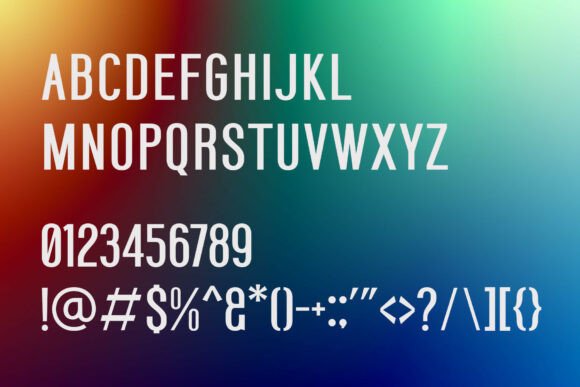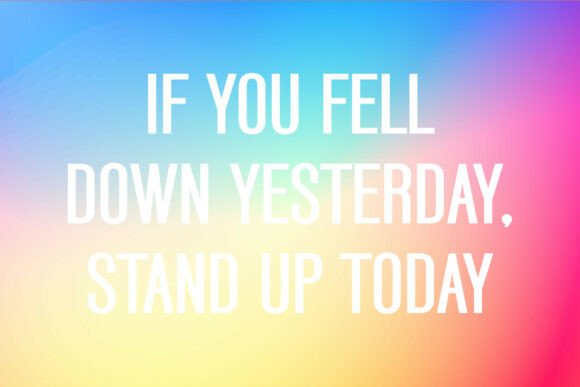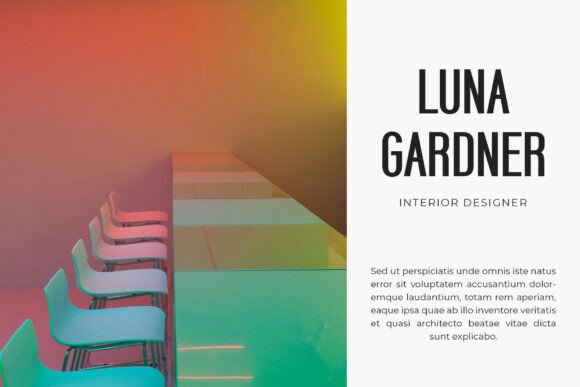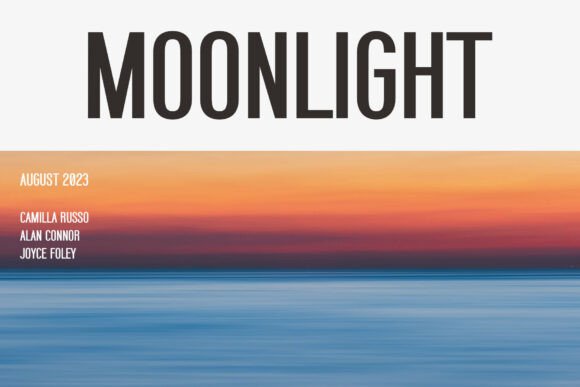
Goshiner Font: Elevate Your Designs with a Bold and Assertive Sans Serif Font
In the world of design, typography plays a crucial role in conveying messages, expressing creativity, and capturing the audience’s attention. A well-chosen font can elevate a design project from ordinary to extraordinary. If you’re a designer or crafter looking for a font that can add a touch of boldness and assertiveness to your creations, look no further than the Goshiner Font. In this article, we’ll explore the features and benefits of the Goshiner Font and why it’s an incredible asset to your font library.
What is Goshiner Font?
Goshiner Font is a bold and assertive sans serif font designed to make a statement. Its clean and modern lines make it perfect for a wide range of design projects, from branding and advertising to packaging and digital media. The font’s sans serif design ensures that your message is conveyed clearly and concisely, without any distractions or embellishments.
Key Features of Goshiner Font
• Bold and Assertive: The Goshiner Font is designed to grab attention and make a statement. Its bold and assertive style ensures that your message is heard loud and clear.
• Clean and Modern: The font’s clean and modern lines make it perfect for contemporary design projects that require a fresh and sleek look.
• Versatile: The Goshiner Font is versatile and can be used for a wide range of design projects, from headings and titles to body text and captions.
• Easy to Read: The font’s clear and concise design ensures that your message is easy to read and understand, even at small font sizes.
Benefits of Using Goshiner Font
The Goshiner Font offers several benefits to designers and crafters, including:
• Enhanced Visual Impact: The font’s bold and assertive style ensures that your design project grabs attention and makes a lasting impression.
• Improved Readability: The font’s clear and concise design ensures that your message is easy to read and understand, even at small font sizes.
• Increased Versatility: The Goshiner Font can be used for a wide range of design projects, from headings and titles to body text and captions.
• Time-Saving: The font’s versatility and ease of use save you time and effort, allowing you to focus on other creative aspects of your design project.
How to Use Goshiner Font in Your Design Projects
Using the Goshiner Font in your design projects is easy. Here are some tips to get you started:
• Headings and Titles: Use the Goshiner Font for headings and titles to add a touch of boldness and assertiveness to your design project.
• Body Text: Use the font for body text to ensure that your message is easy to read and understand.
• Branding and Advertising: Use the Goshiner Font for branding and advertising projects to create a bold and memorable brand identity.
• Digital Media: Use the font for digital media projects, such as social media graphics, email marketing campaigns, and website designs.
The Goshiner Font is a bold and assertive sans serif font that can elevate any design project. Its clean and modern lines, versatility, and ease of use make it an incredible asset to your font library. Whether you’re a designer or crafter, the Goshiner Font is a must-have font that can help you create stunning designs that grab attention and make a lasting impression.